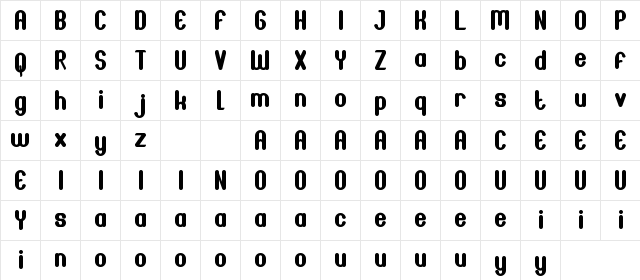
Joscelynn Demo Regular
| Foundry | Edric Studio |
| Designer | Renata Insan C |
Design Context for Joscelynn Demo Typeface
Joscelynn Demo is a composed and adaptable typeface that performs quietly and consistently across a wide range of design contexts.
Pro Tip: Use Joscelynn Demo in both headline and body roles to test its range before committing to a single application.